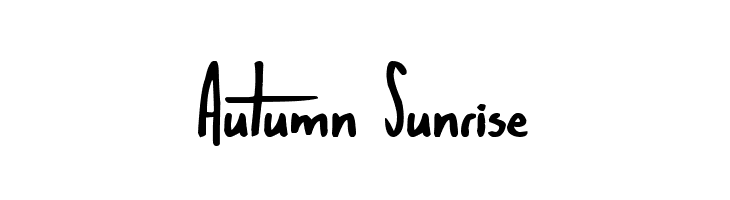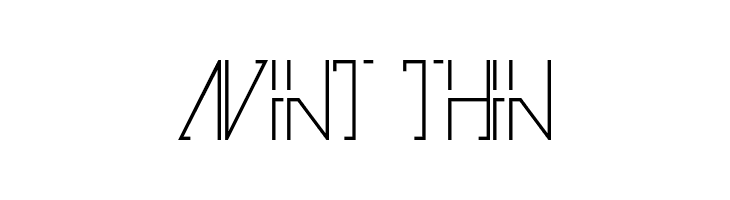
A playful, handwritten font with bold, irregular strokes and a casual vibe.
A playful, handwritten font with bold, flowing strokes and a dynamic slant.
An elegant, cursive font with a calligraphic style and fluid character connections.
A playful, slanted handwritten font with bold, dynamic characters.
A geometric, futuristic font with clean lines and sharp angles.
A bold, brush-style font with dynamic, hand-painted strokes.
A bold, gothic-inspired blackletter font with high contrast and ornate details.
An elegant script font with flowing, cursive characters and intricate swashes.
A modern, geometric font with clean lines and a minimalist aesthetic.
An ornate and whimsical decorative font with intricate swirls and curls.